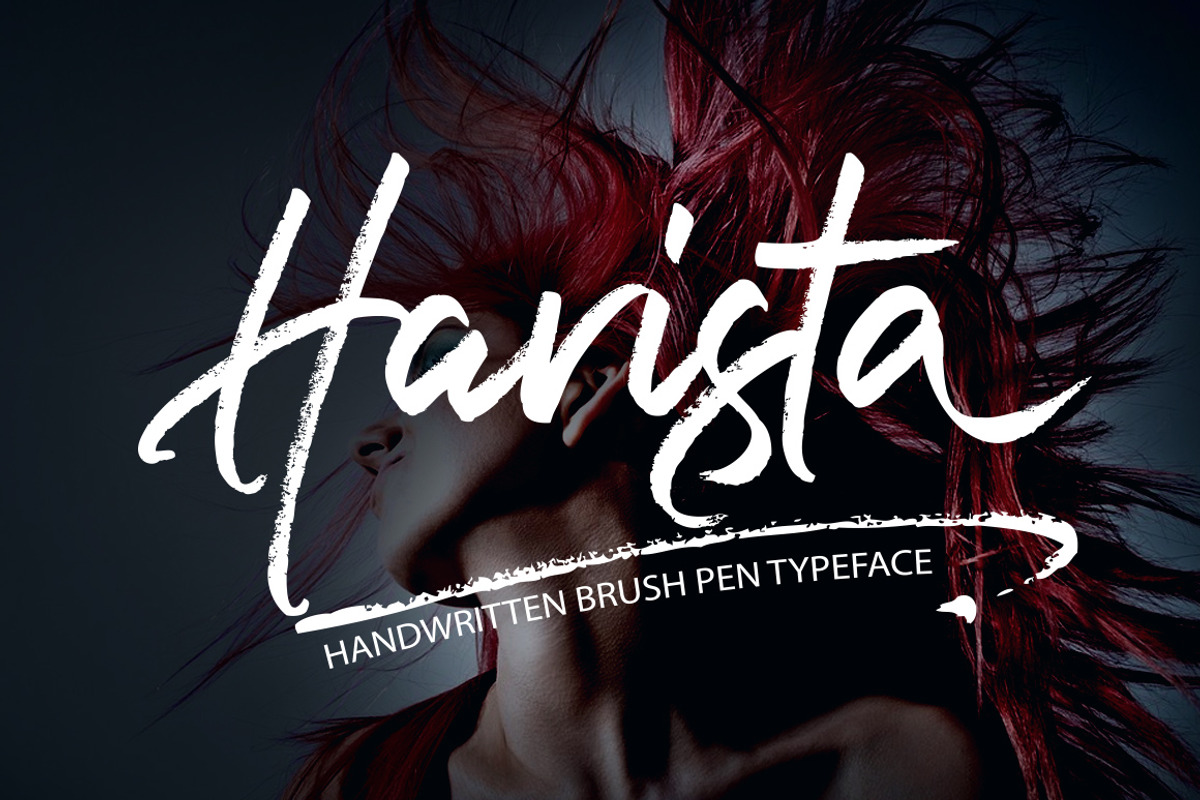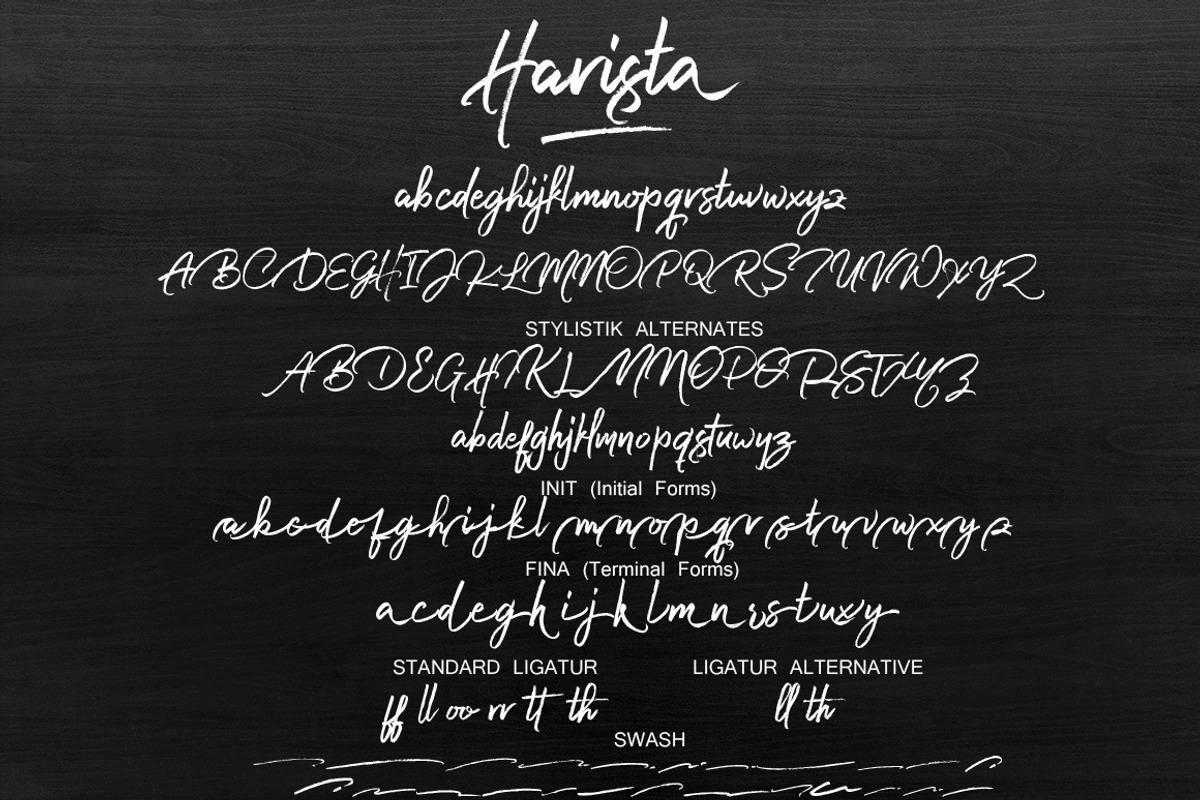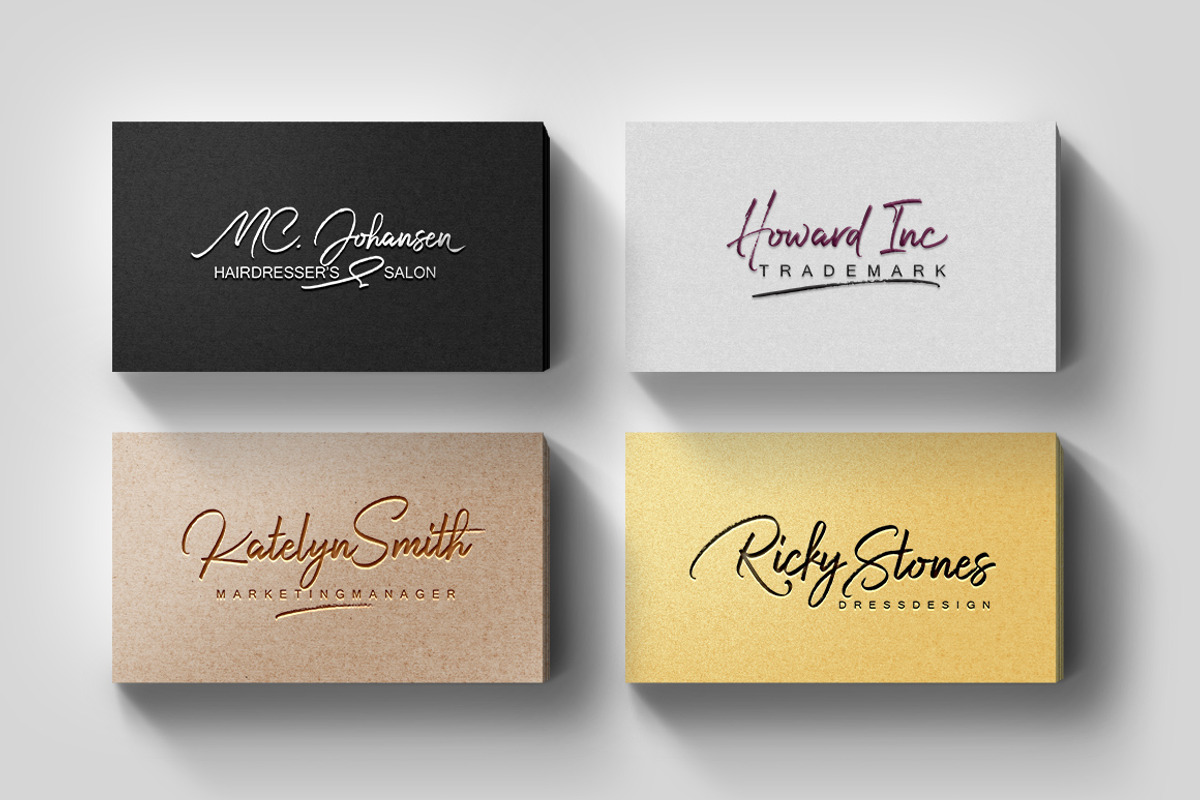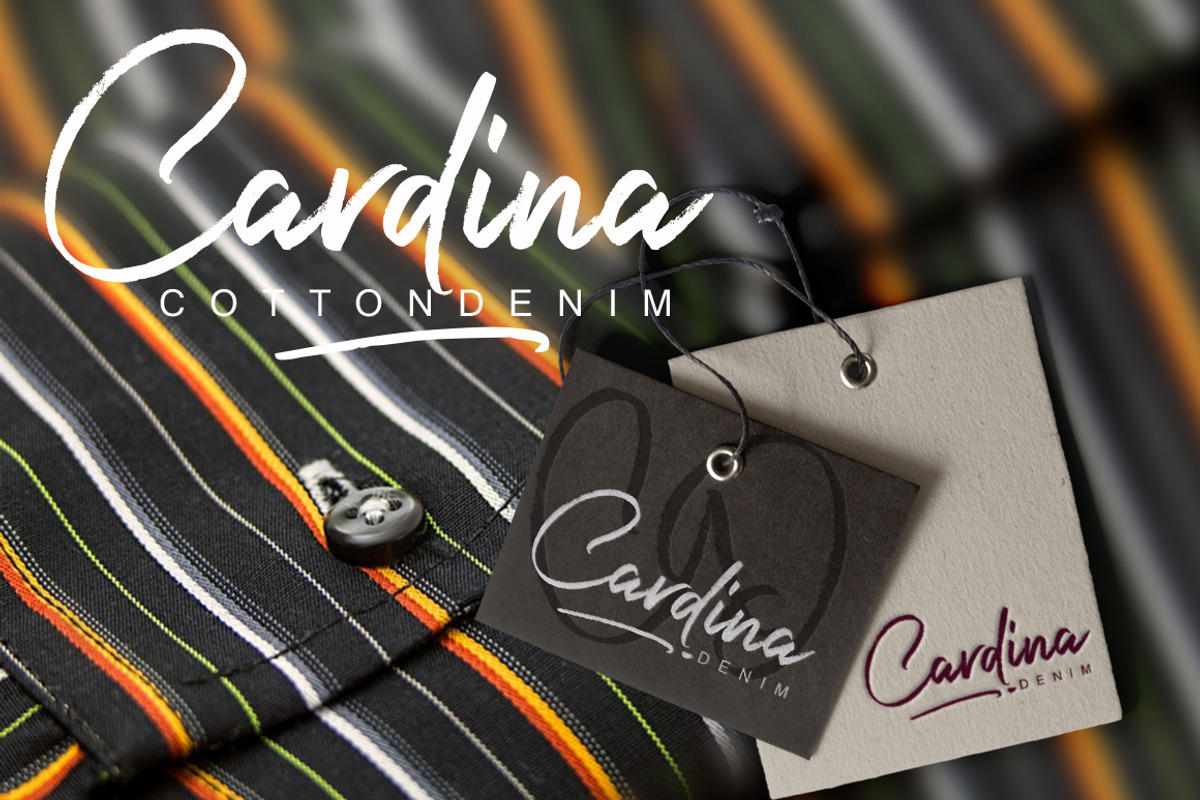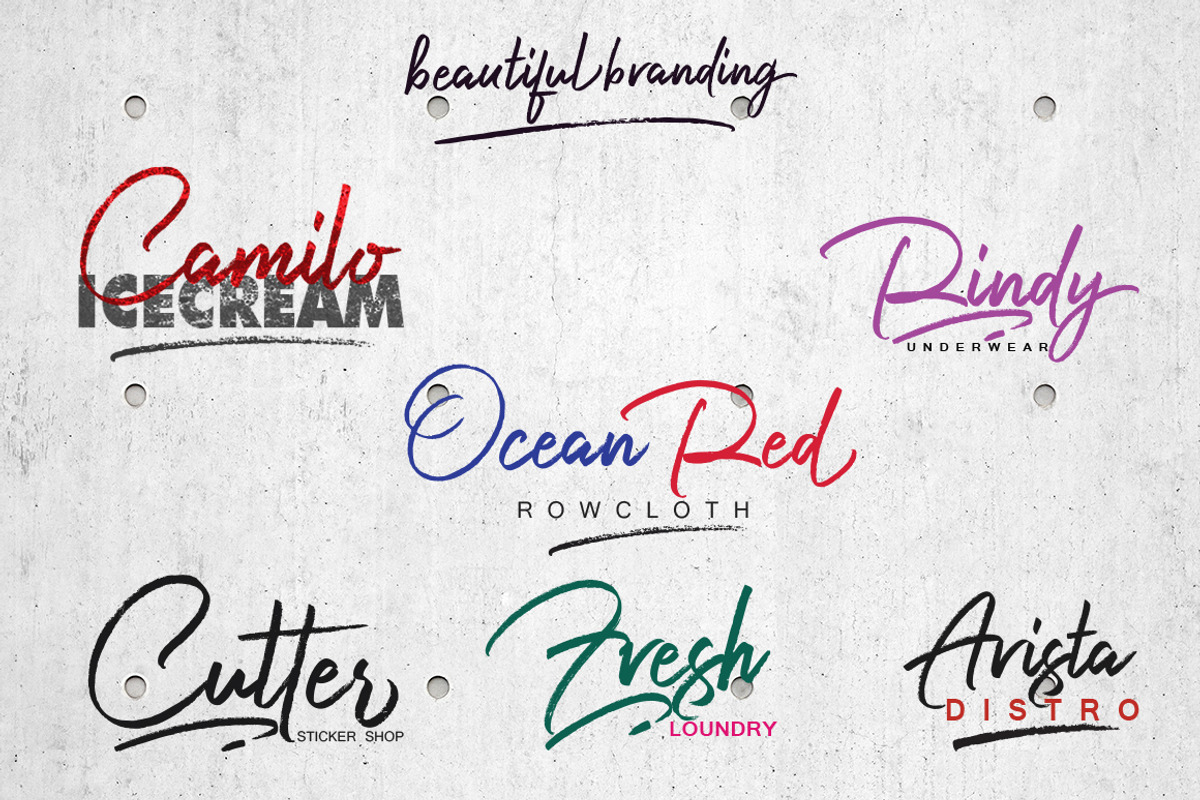
Harista Script
INTRODUCING
Harista Script Handwritten font with Brush Pen. kind of a signature style, perfect for branding projects, packaging products - business cards - logos and others
Harista Script It contains a full set of lowercase & uppercase, a large range of punctuation, numerals, and multilingual support. The font also contains several ligatures, Initial Forms, stylistic alternates, Terminal Form (FINA) & Swash, for you who have opentype capable software (e.g. Photoshop/Illustrator, Corel Draw).
Harista Script allows you to create custom dynamic text. you can access by turning on; Stylistic Alternates, Initial Forms, Terminal Form (FINA), as well as ligatures in Photoshop, Adobe Illustrator, Adobe InDesign or through a panel of glyphs such as Adobe Illustrator, Photoshop CC, Let's switch from the reguler character into character alternative to get the text with the layout of your dreams.
Features Basic Latin A-Z and a-z Numbers Symbols